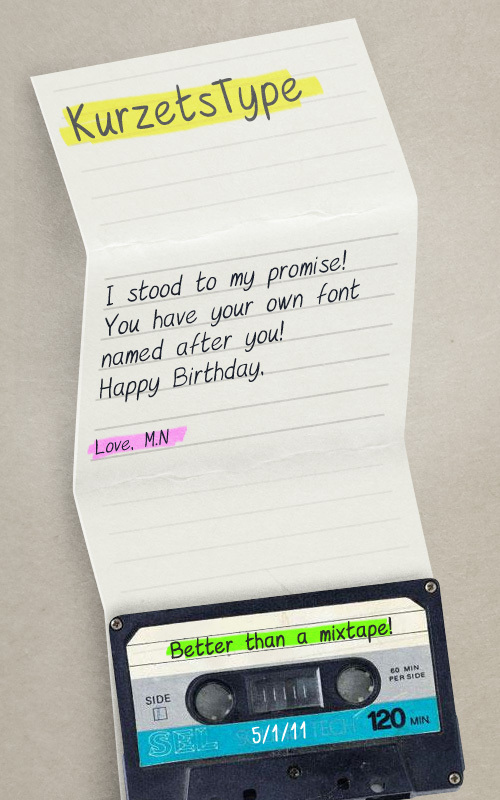
KurzetsType by Hamutzim Studio is a free handwritten font with tall, loosely drawn letters and an easygoing, personal character. Its uneven stroke widths, rounded turns, and shifting proportions make the writing feel quick and uncorrected, much like notes made with a felt-tip pen.
Independent cafes, craft shops, and small food brands could use it to give packaging or signage a direct, homemade voice. It also suits casual event posters and children's publishing, especially for audiences who respond to lettering that feels approachable rather than formally typeset.